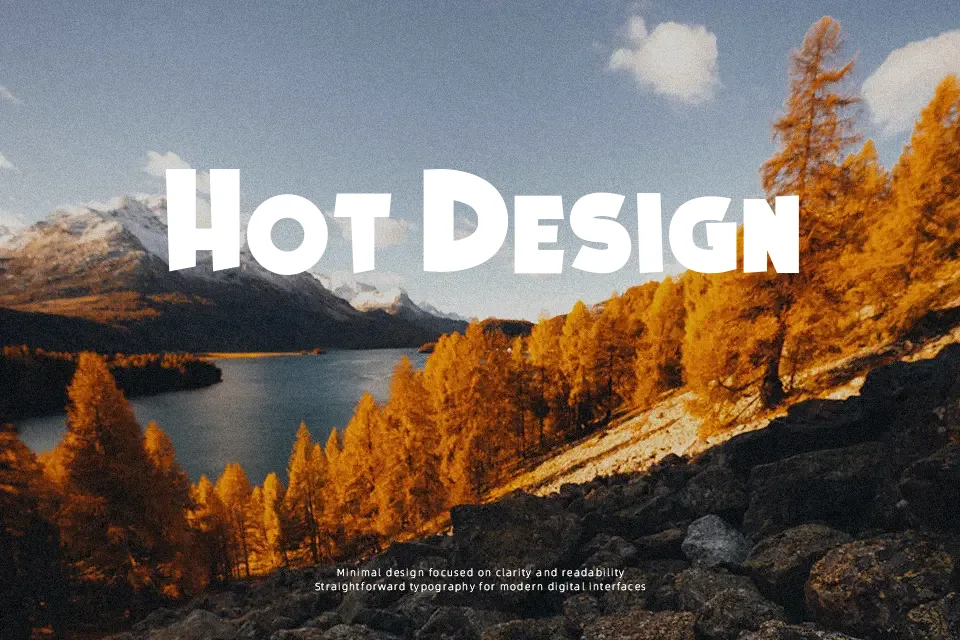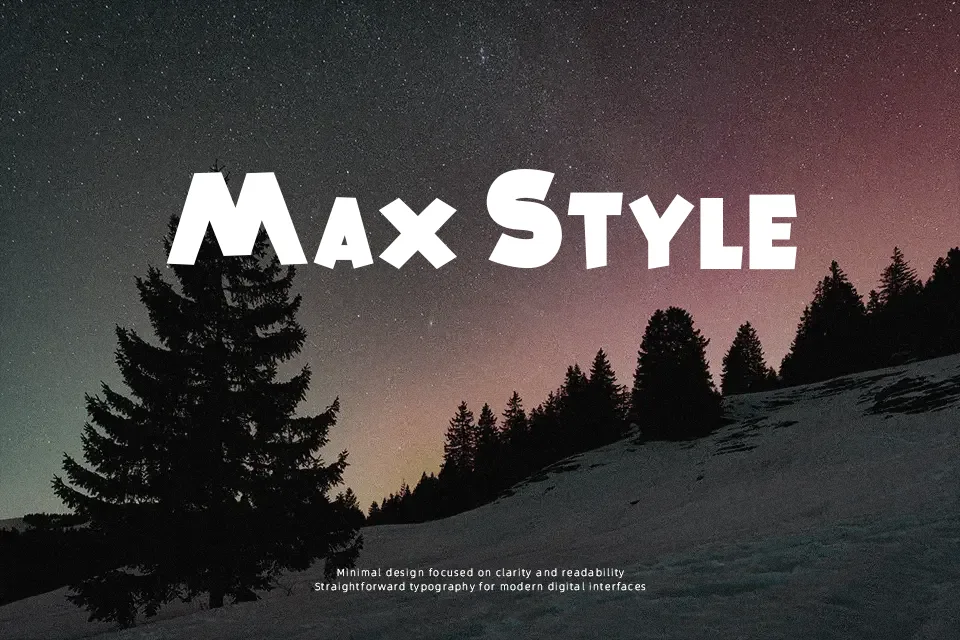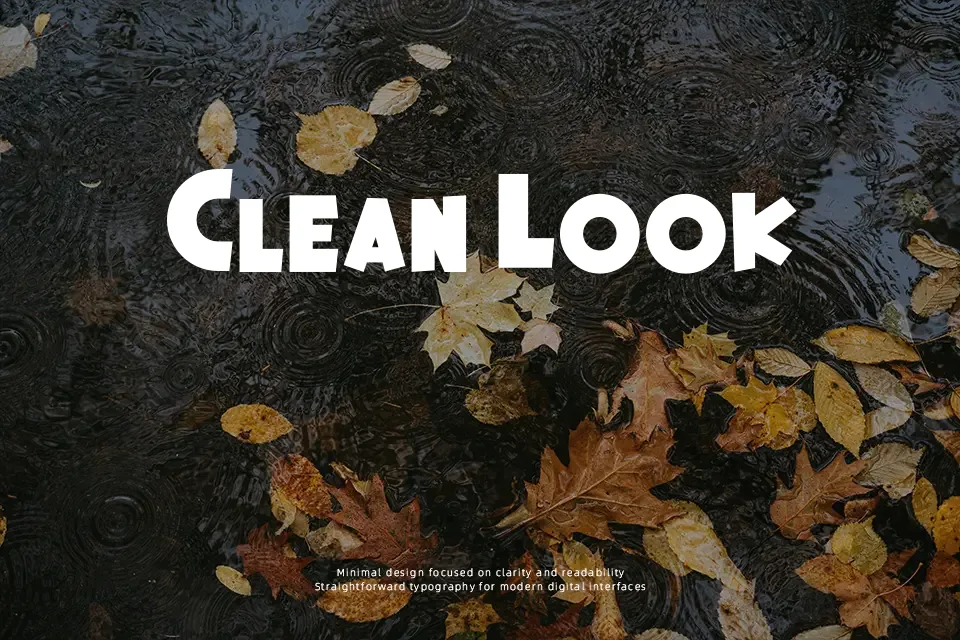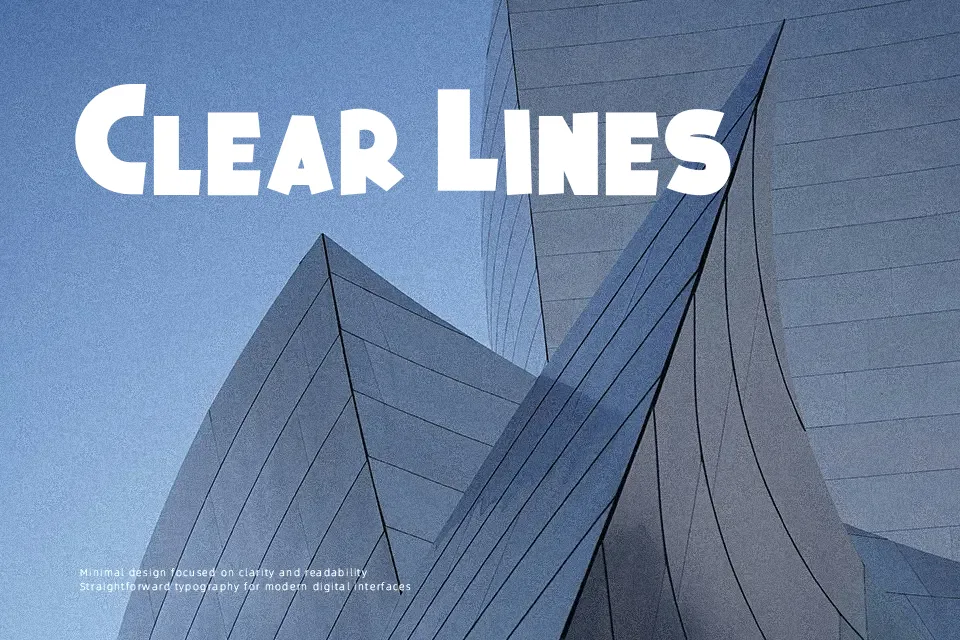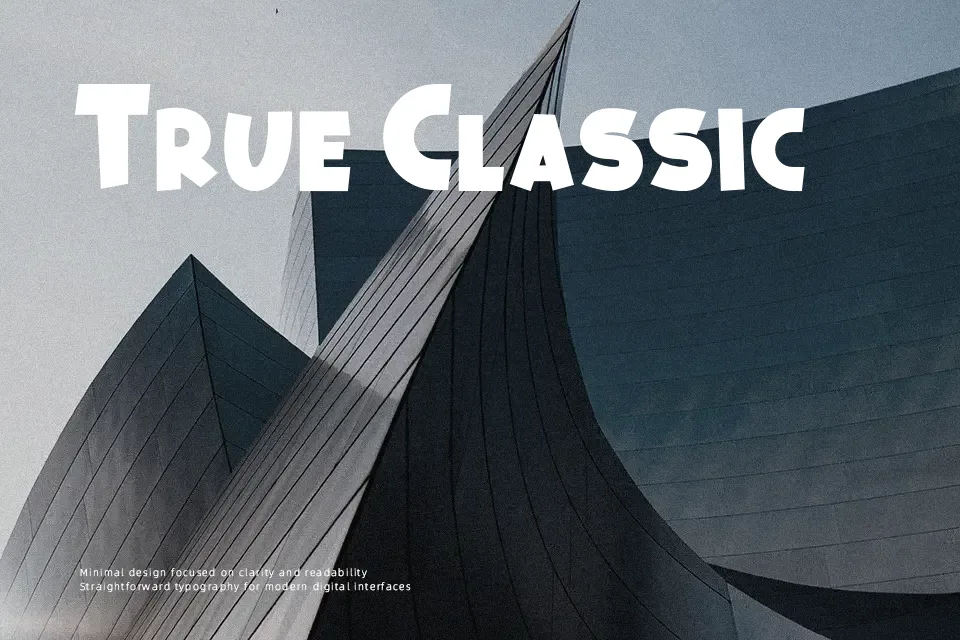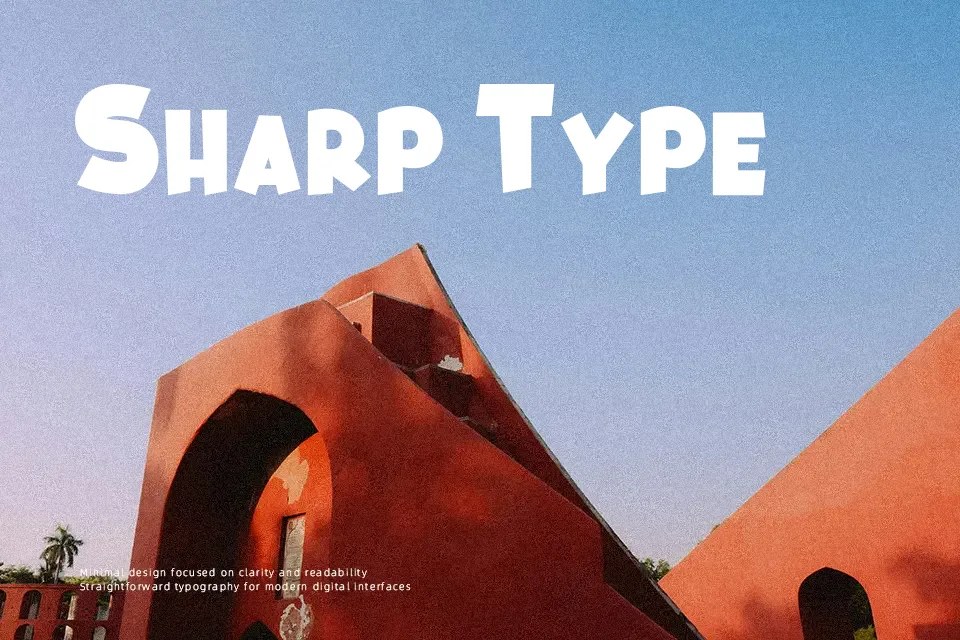
Squire Hawaii Font
Designed by FinTypeStudio
Squire Hawaii Font introduces a spirited visual presence defined by thick, rounded strokes and soft, hand-drawn contours. The letterforms exhibit minimal stroke contrast and slightly inflated proportions, creating a lively rhythm across display lines. Open character spacing preserves legibility across medium and large scales, preventing dense glyph collisions in title settings. This typeface excels in casual mobile game titles, food packaging, youth apparel branding, and thematic event banners. However, the exaggerated weight and decorative personality reduce reading comfort in extended body paragraphs. Bold character silhouettes give the overall design exceptional visual clarity across large promotional banners.
Best For: children’s book titles, casual mobile game UI, playful snack packaging, thematic party posters
Not Ideal For: continuous body text, corporate annual reports, technical manuals, legal documentation